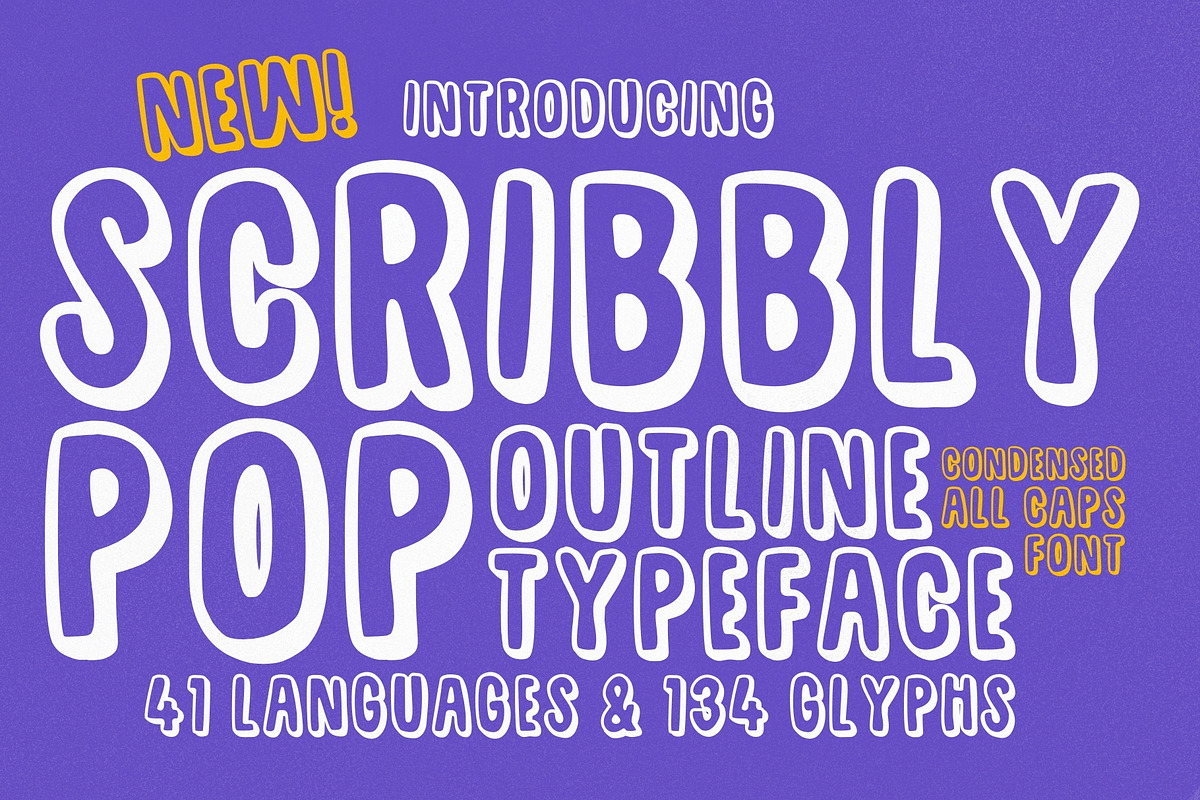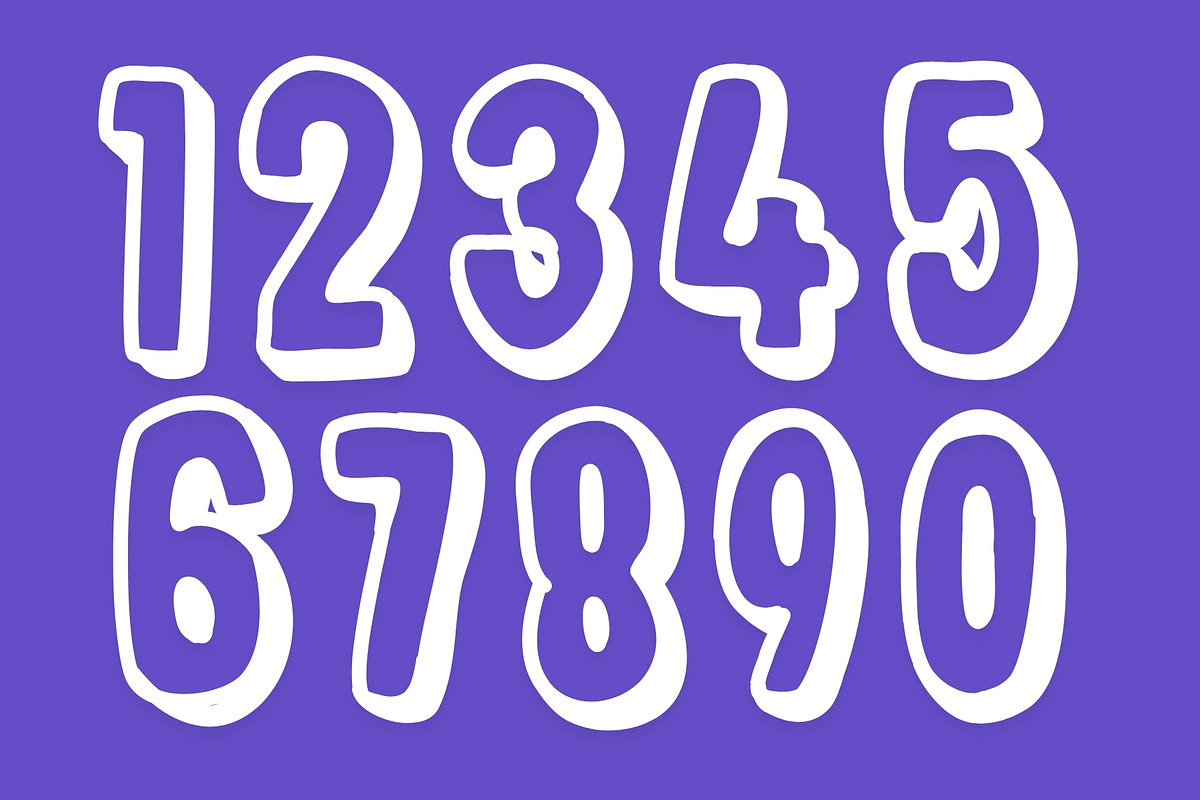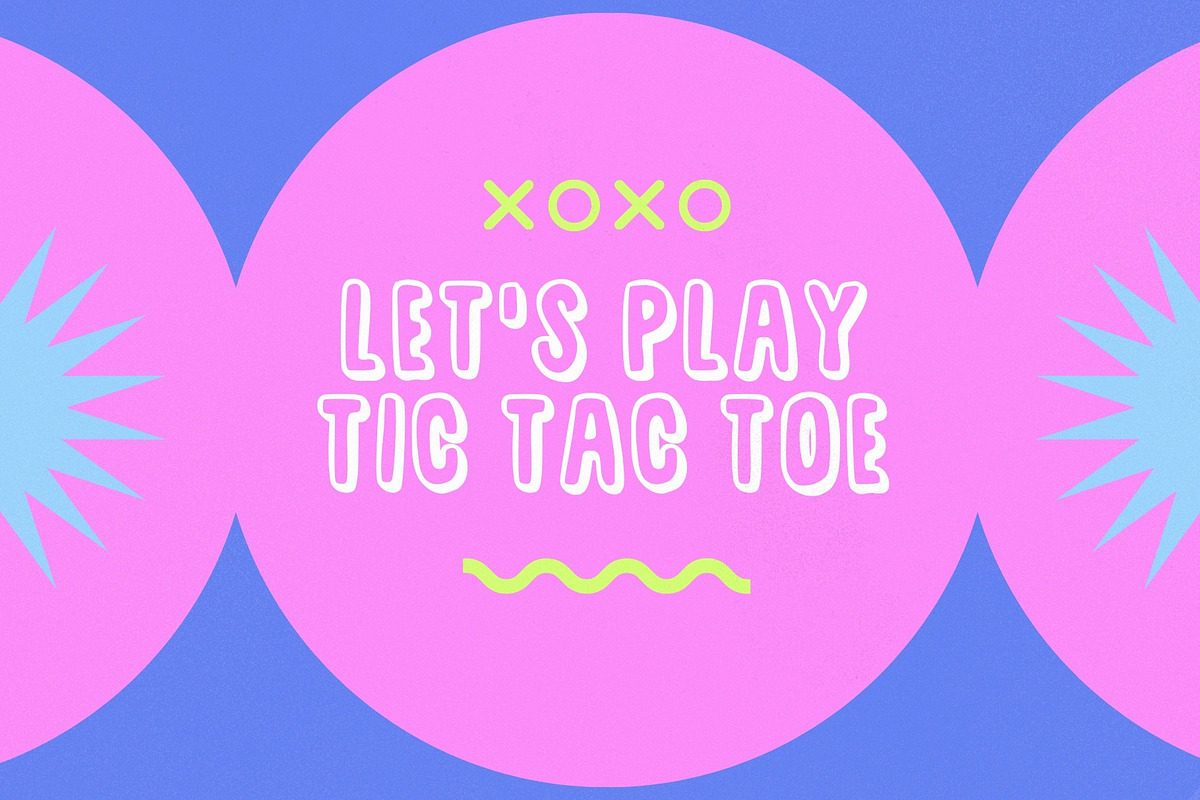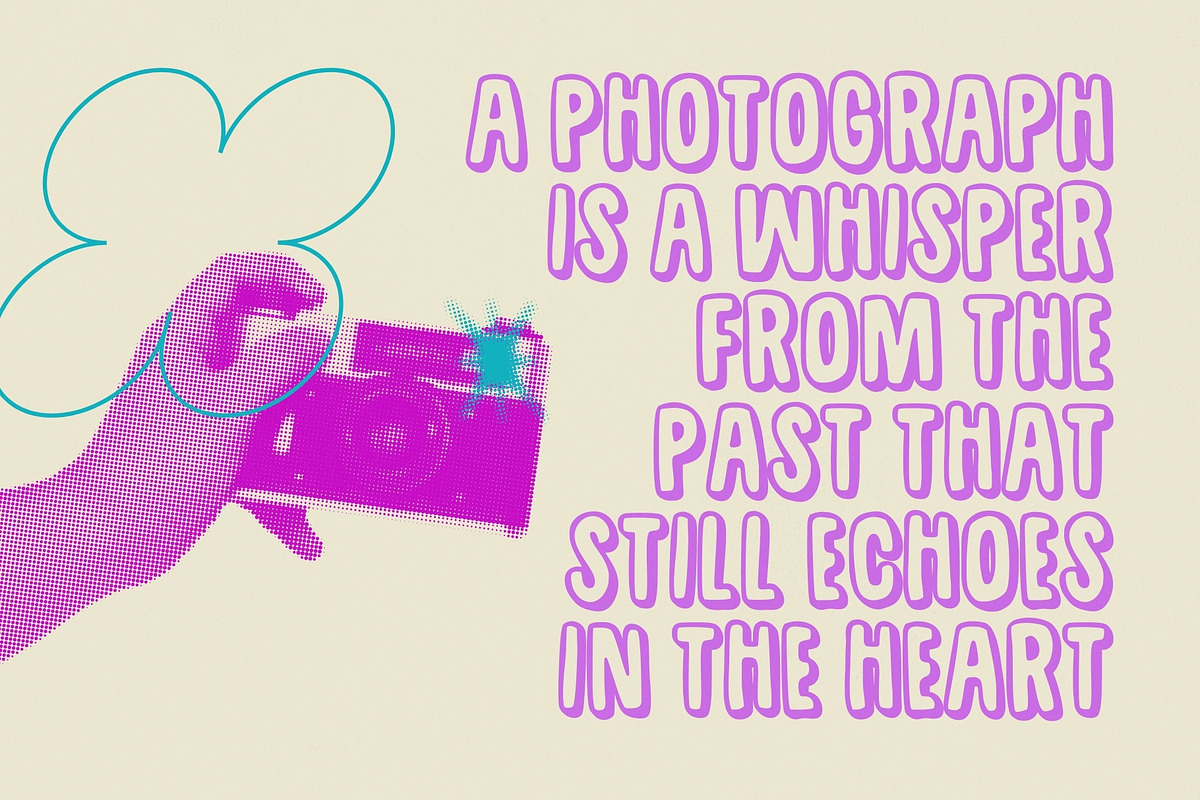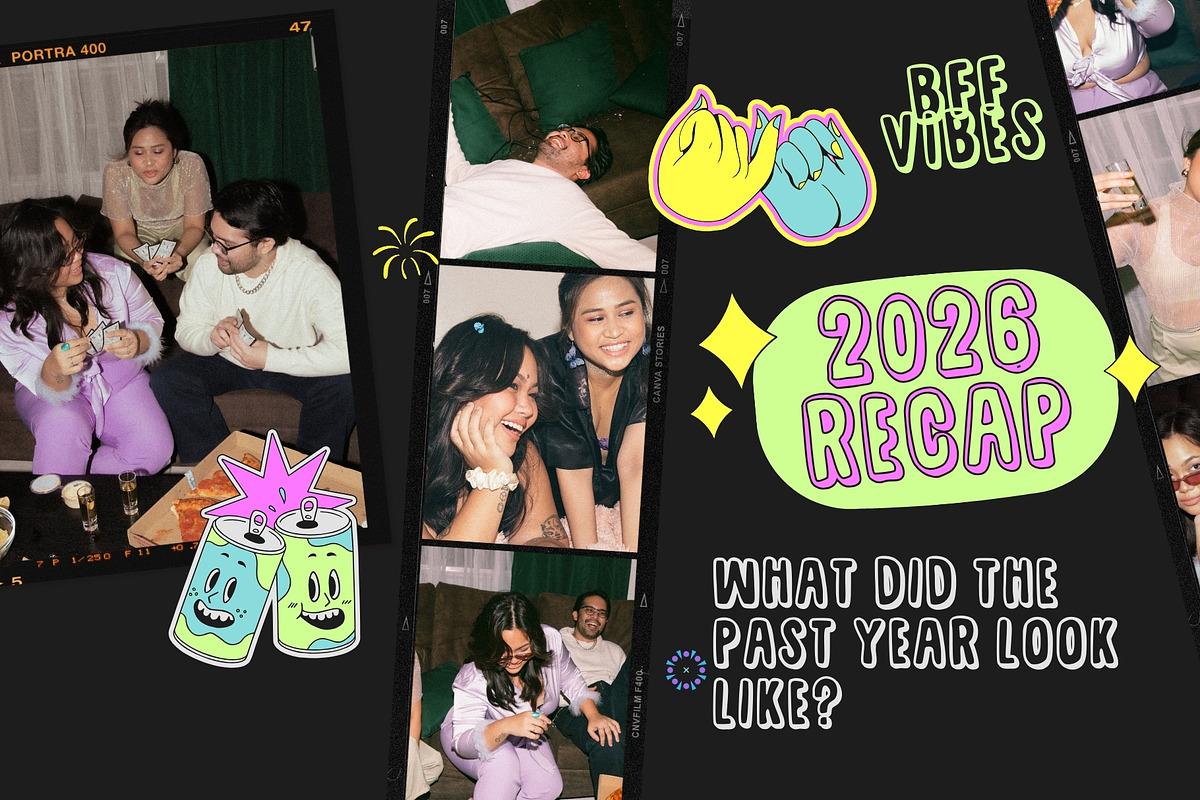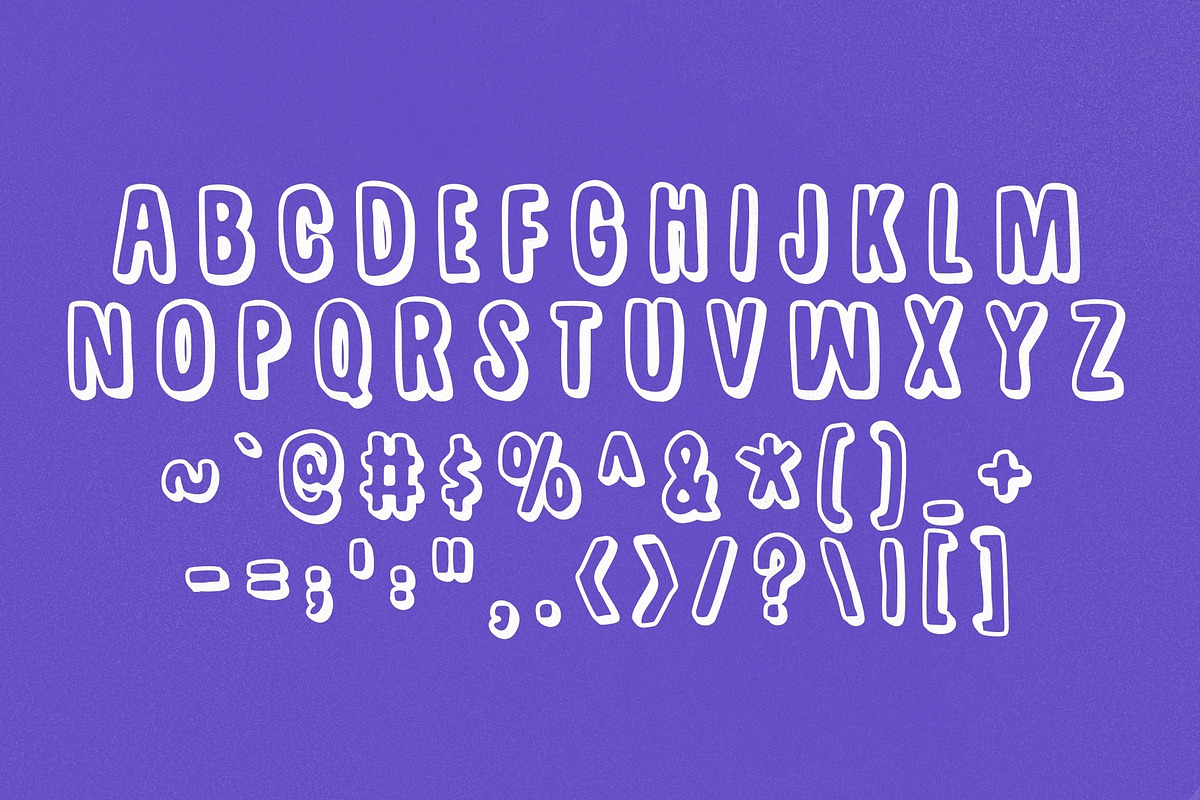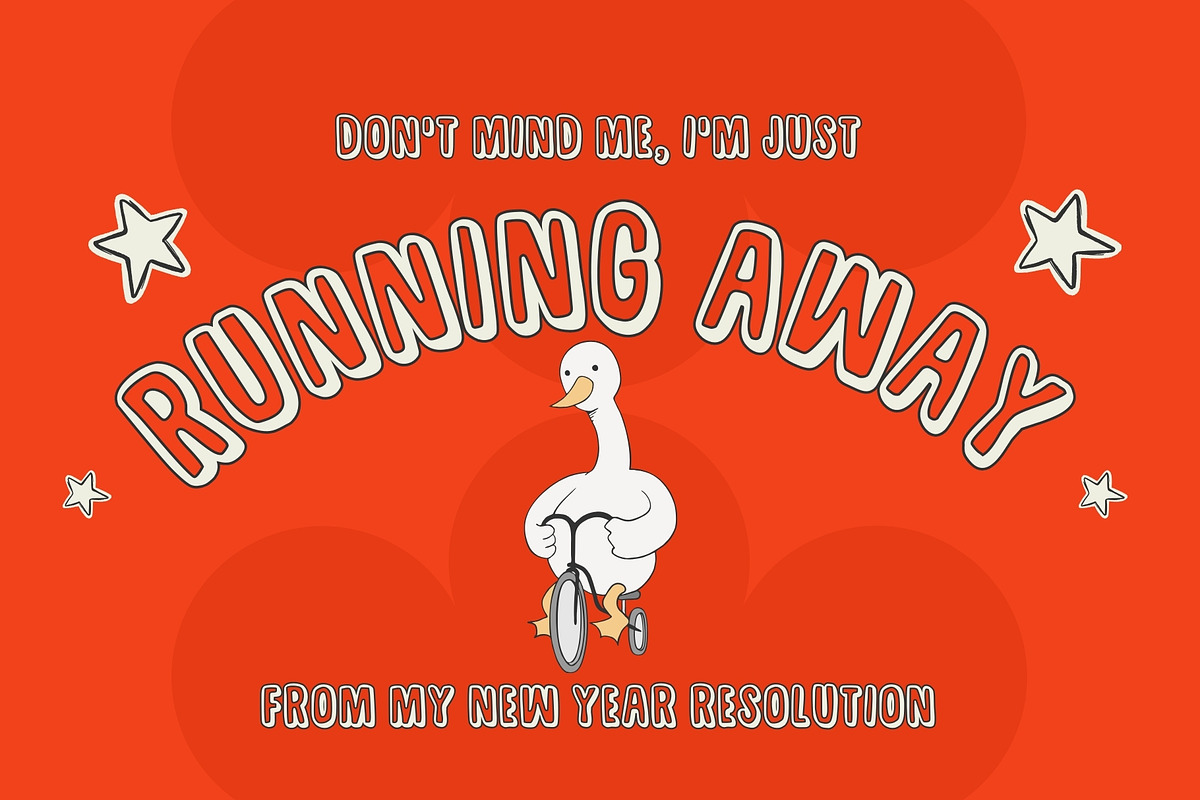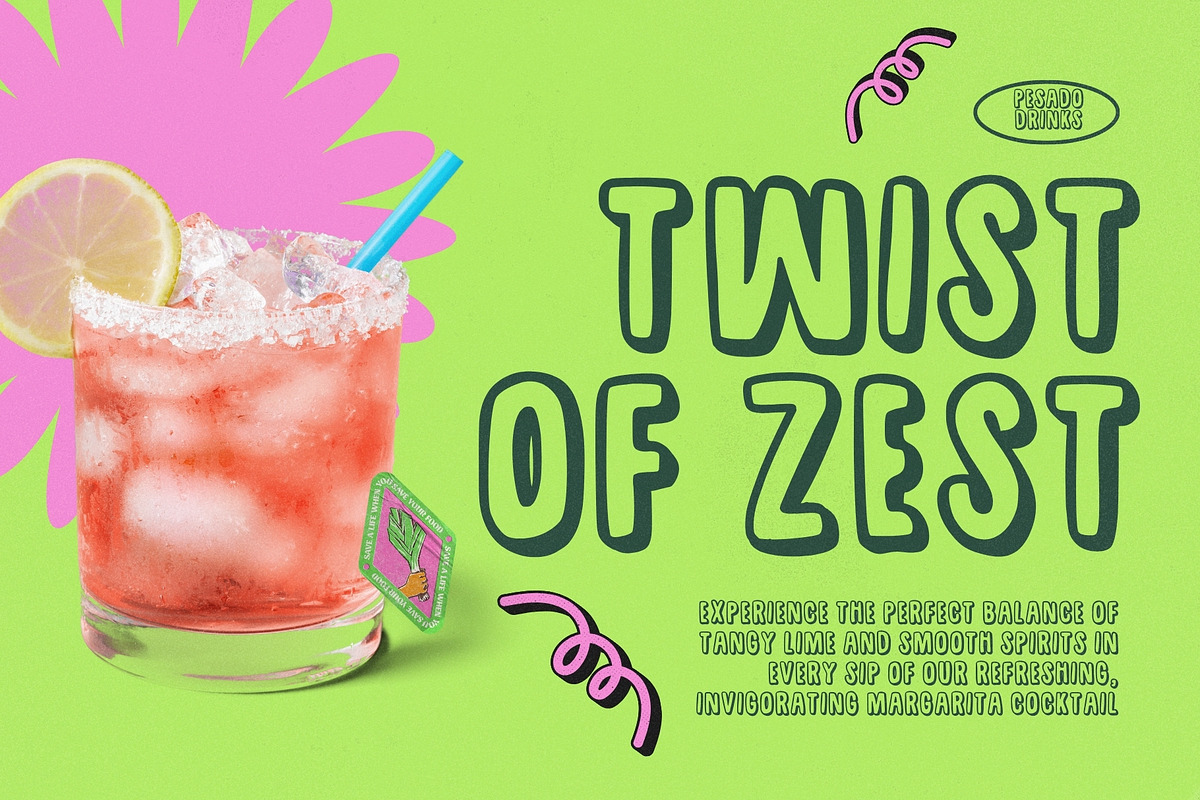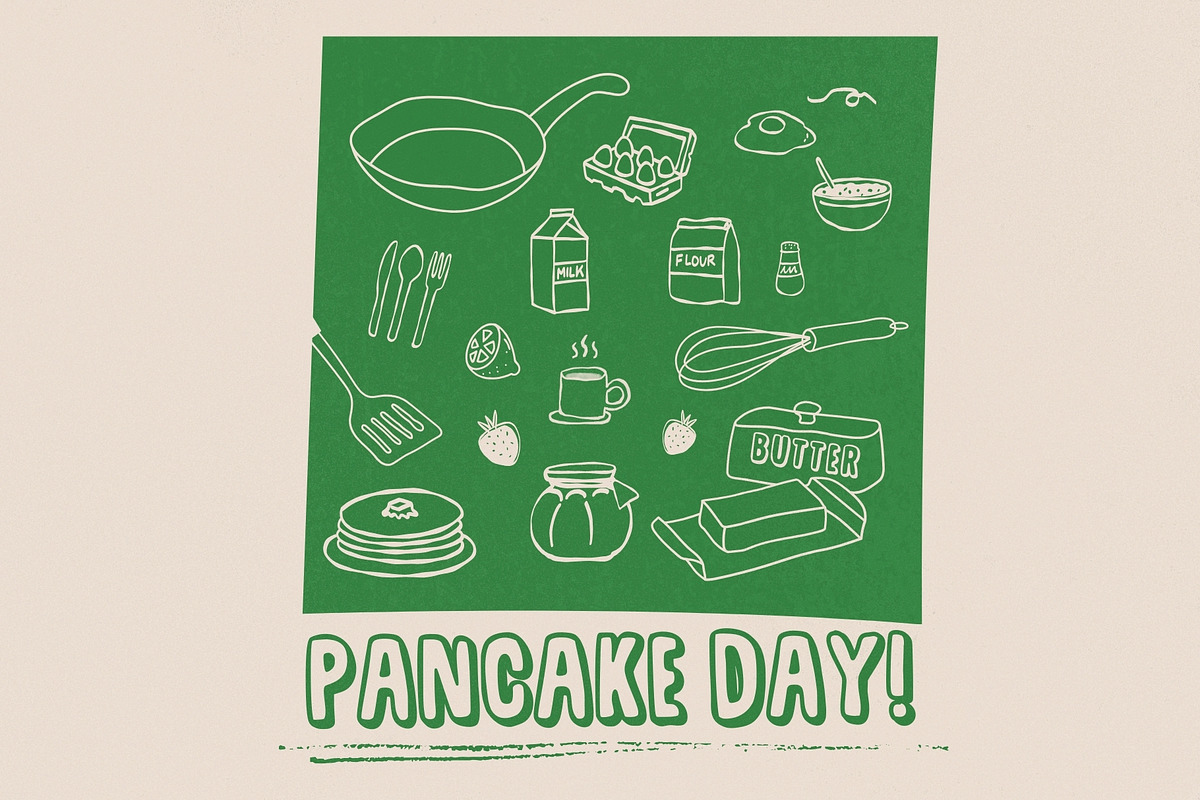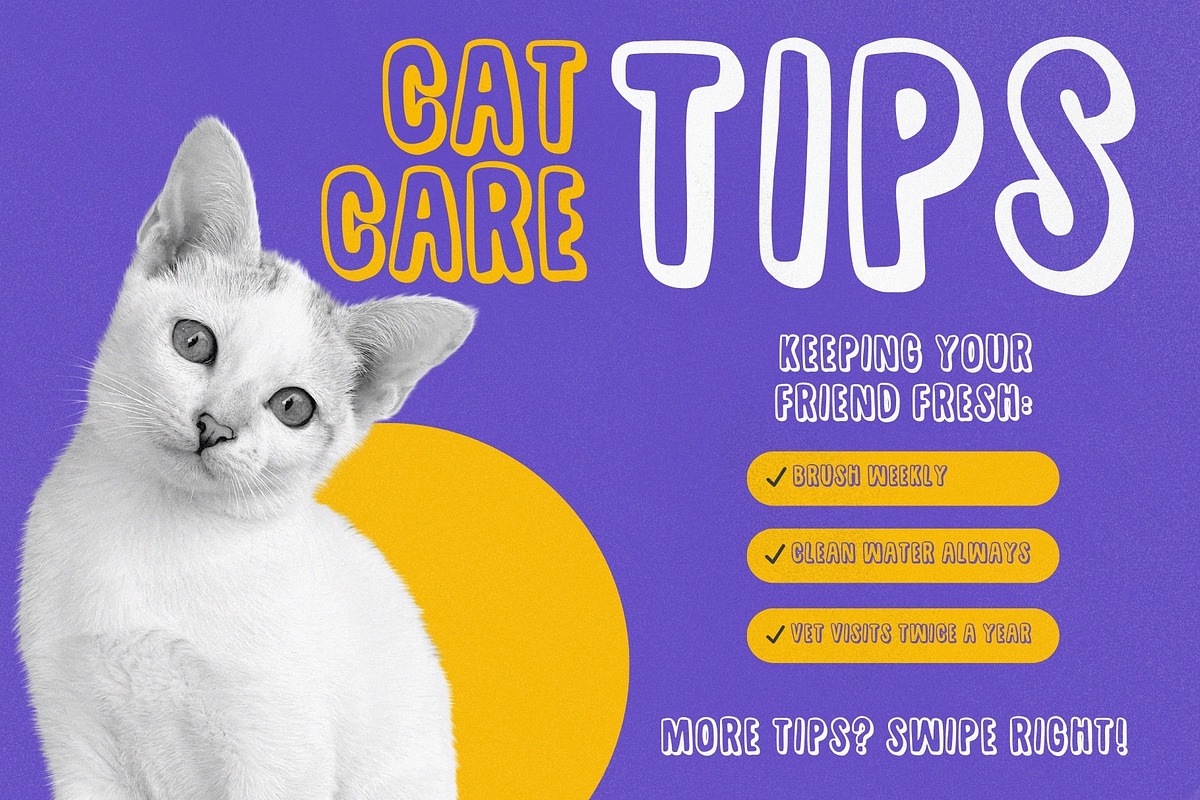
Scribbly Pop - Condensed Outline
Introducing Scribbly Pop Typeface, a cheerful condensed outline font designed to bring fun, warmth, and playful personality into your designs. With its hand-drawn scribbly style and bold all-caps structure, this typeface instantly creates an energetic and approachable visual tone.
Scribbly Pop embraces an imperfect, sketch-like aesthetic that feels lively and spontaneous. The condensed letterforms make it perfect for eye-catching headlines, posters, and creative layouts where space is limited but personality is essential. Each character carries a friendly charm that feels expressive, youthful, and full of creative spirit.
This typeface is especially ideal for projects that aim to feel playful, welcoming, and full of joy. Its scribbled outline style gives designs a fun handcrafted touch that stands out from traditional digital fonts.
With 134 glyphs and support for 41 languages, Scribbly Pop Typeface provides reliable versatility while maintaining its unique playful character.